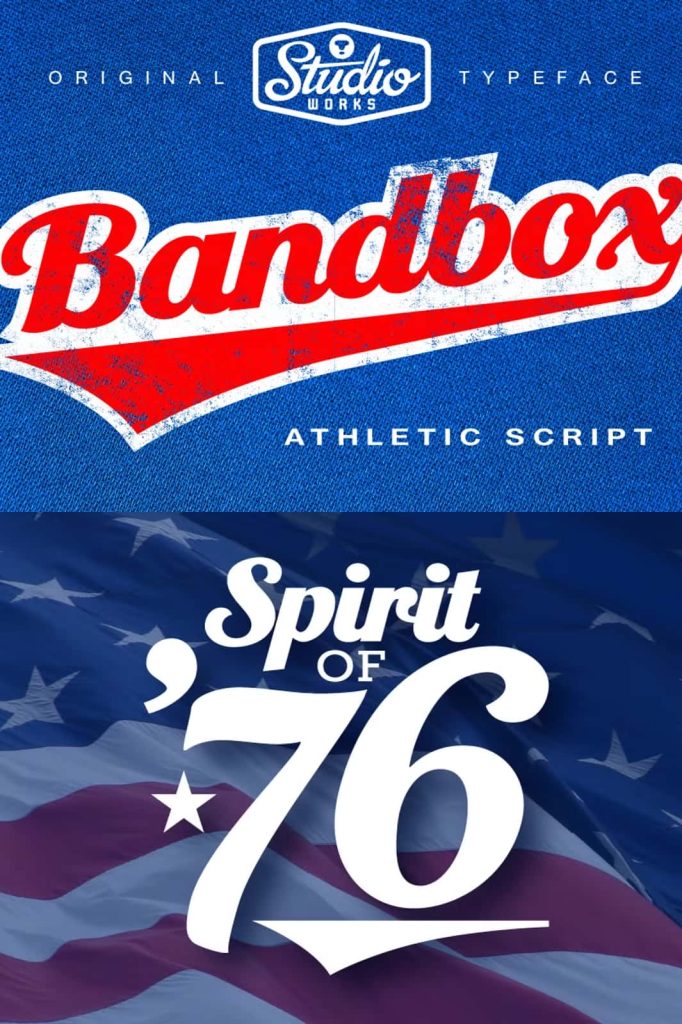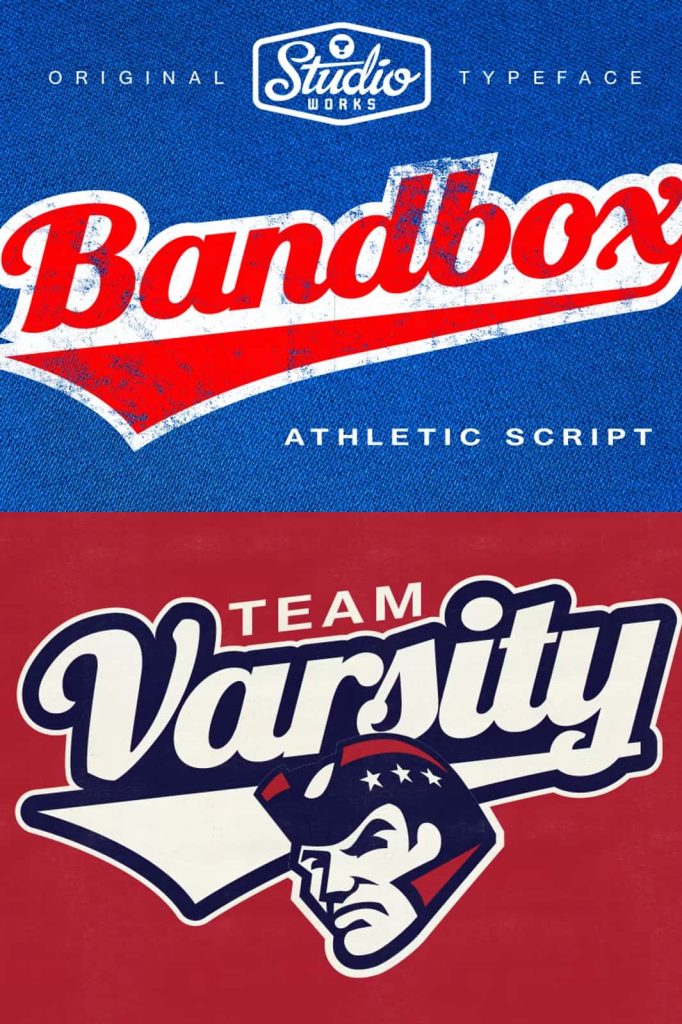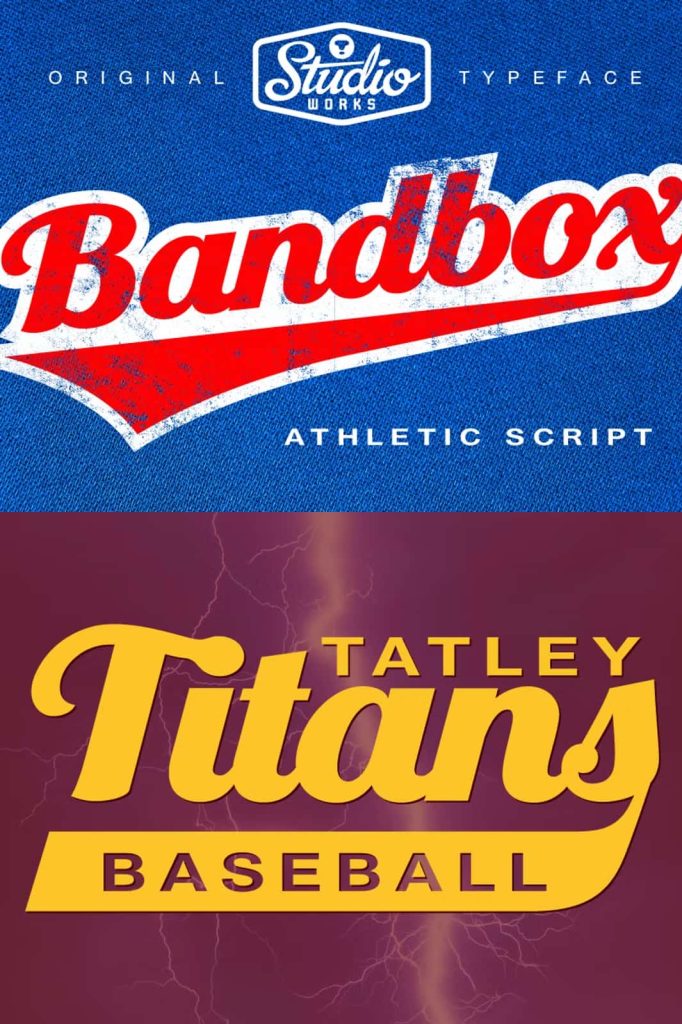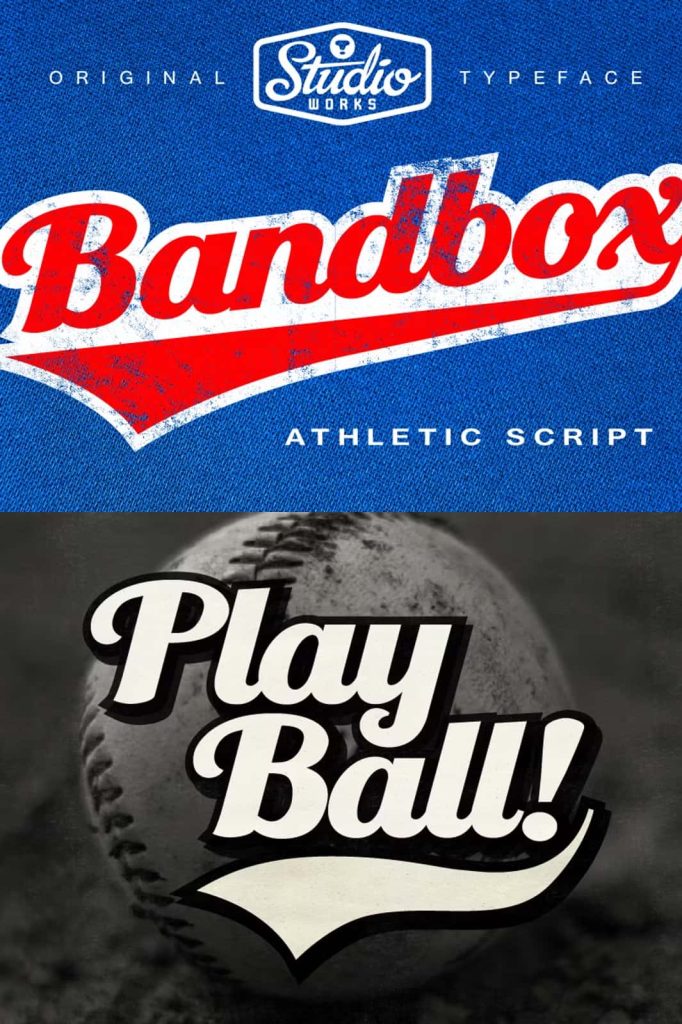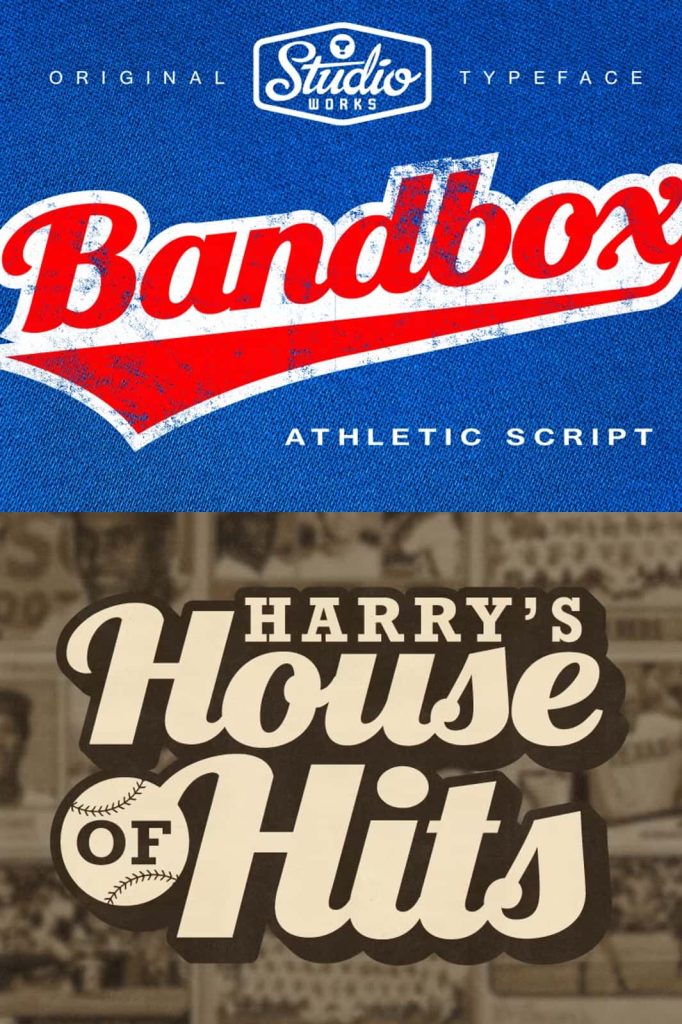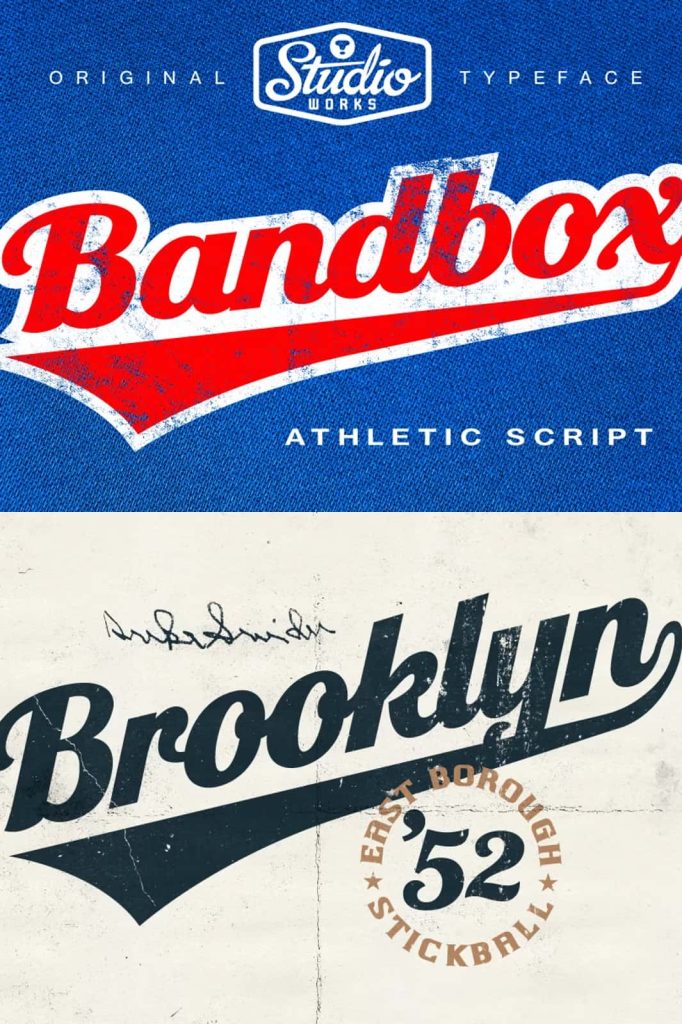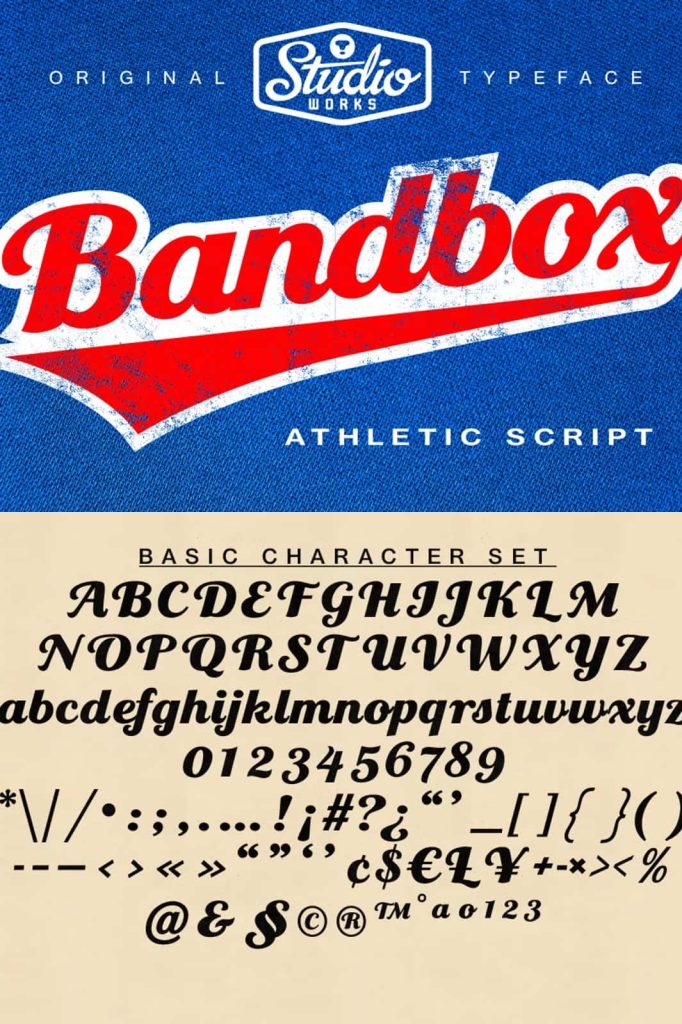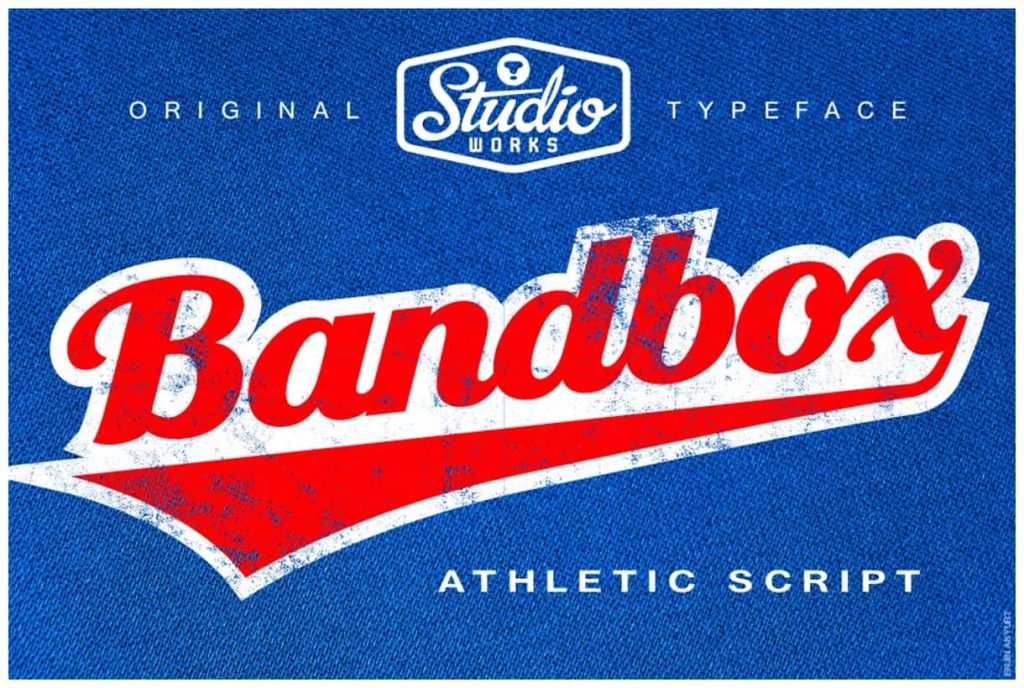
Bandbox | Athletic Script TypefaceleastedMarch 11, 2025Fonts Inspired by classic sport logo lock-ups, Bandbox delivers with its heavy, streaming cursive letterforms. Download